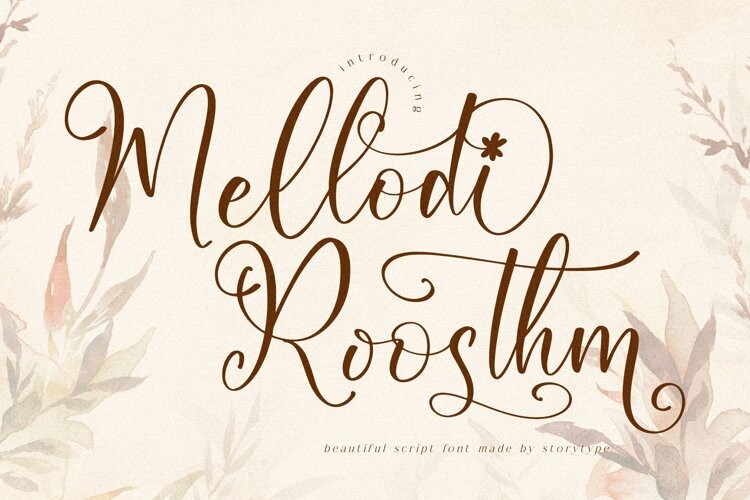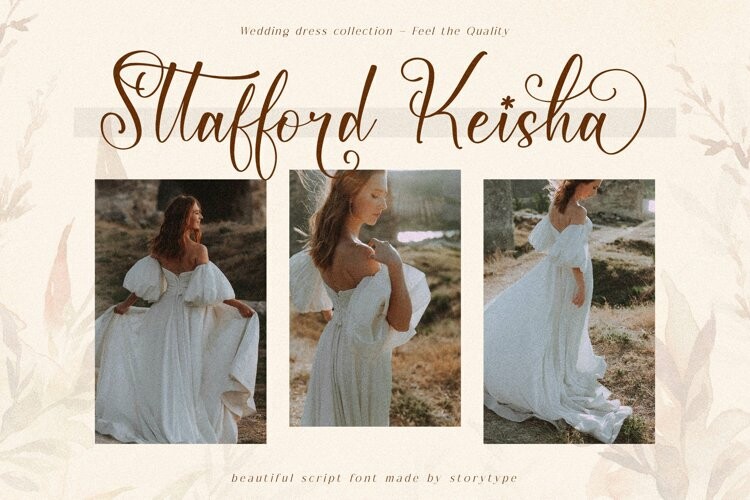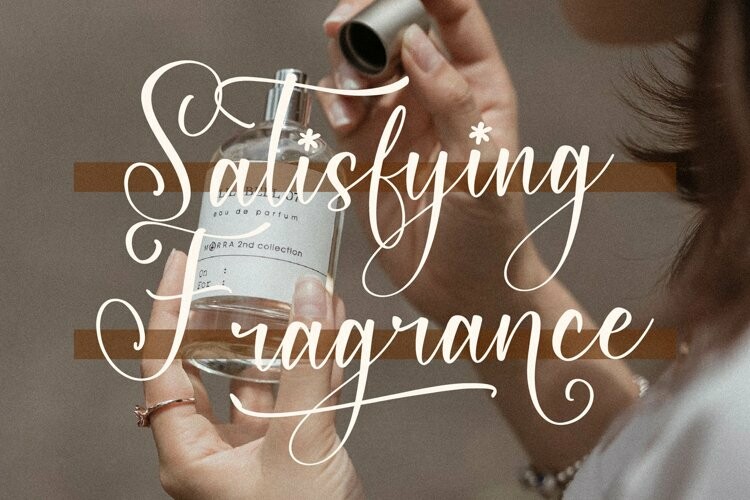
Mellodi Roosthm Font
Mellodi Roosthm FontProudly present Mellodi Roosthm – Beautiful Script Font , created by Storytype,
A luxury script that has own unique style & modern look.
This typeface is perfect for an elegant & luxury logo, book or movie title design, fashion brand, magazine, clothes, lettering, quotes, and so much more.